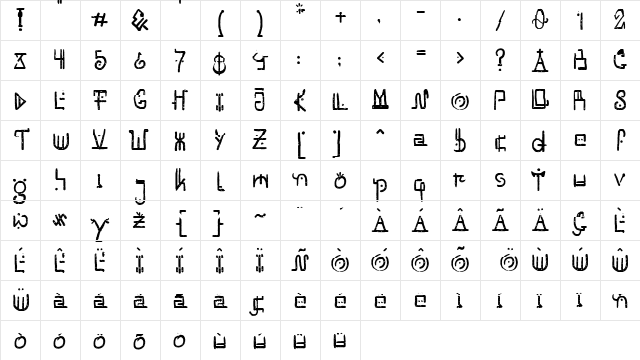
Unai Native Native
Style: Native
Foundry: Unai Tribe
Designer: ￿la Oliveira, JP Martins, Paulo Filho, Karol Frota e Eduardo Novais
Design Context for Unai Native
Unai Native is a composed and adaptable typeface that performs quietly and consistently across a wide range of design contexts.